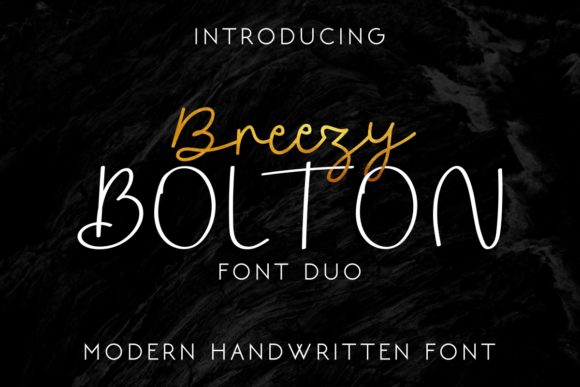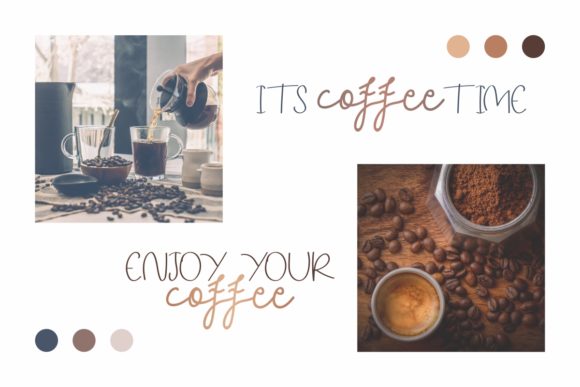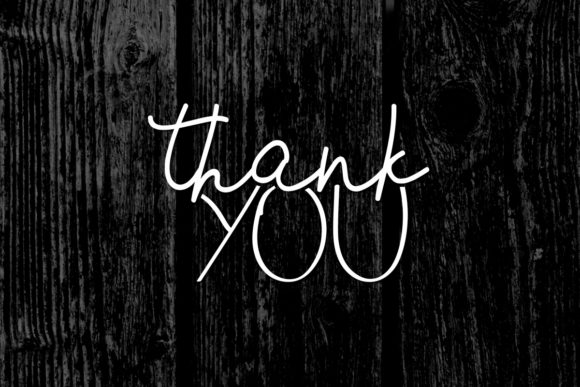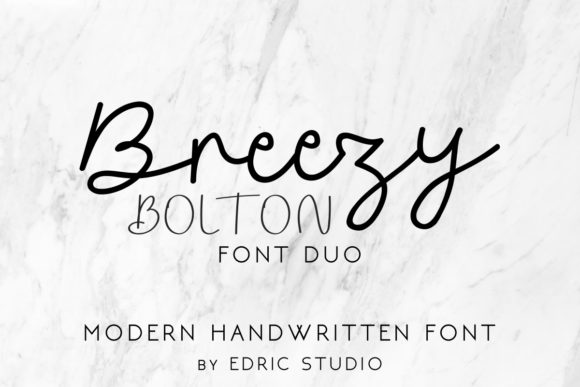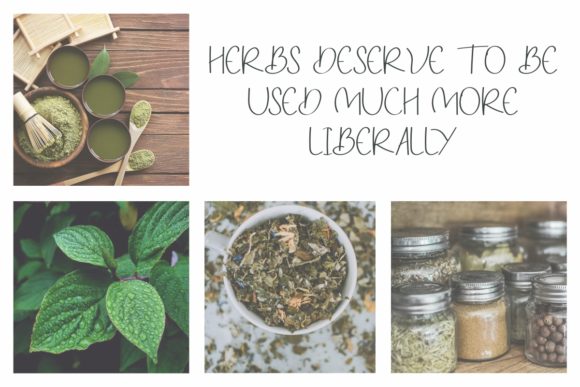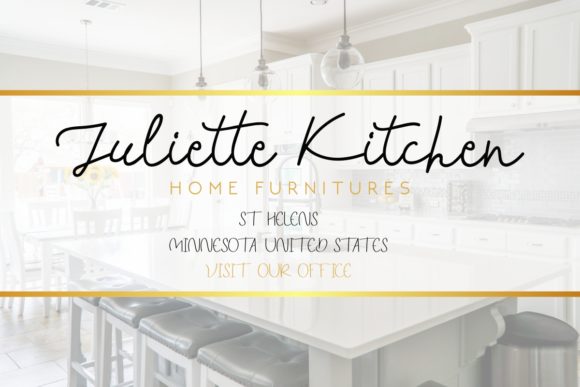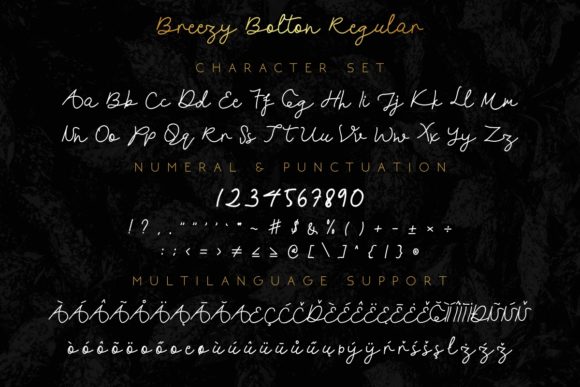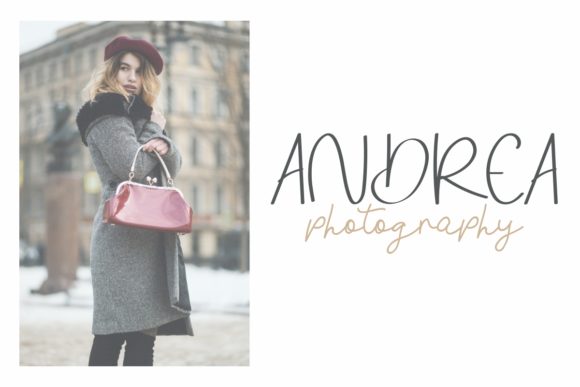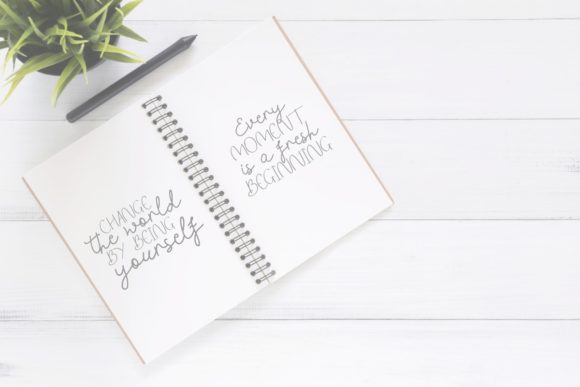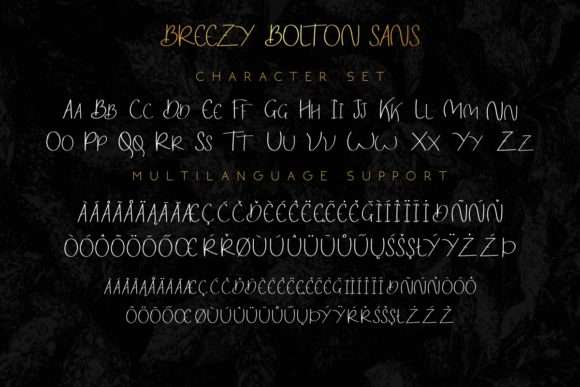
Breezy Bolton Font
About Breezy Bolton Font
Breezy Bolton is a font duo consisting of two styles; Cursive Handwriting and Sans Display. Use them together for perfect design harmony!